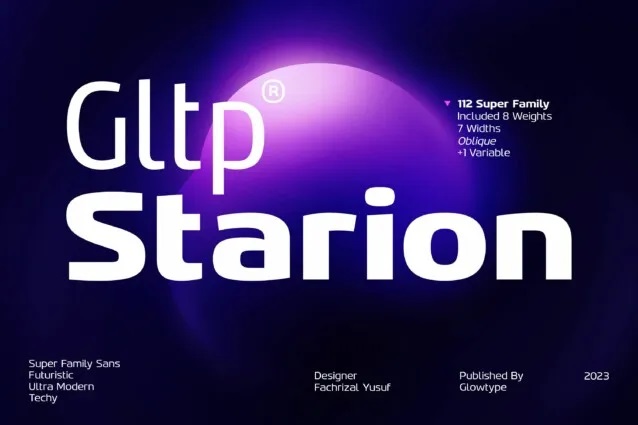
Gltp Starion Font
Gltp Starion Font Family is a super family of sans with open shapes and, technical touch derived from the requirement of automotive, tech, performance and style. This type family aims to cater for the designers who want to give purposeful design direction irrespective of whether one is designing cars, space rockets, airplanes, gadgets, even luxury watches or anything in between.
In these 8 weights, 7 widths, and an oblique. From Thin to Black – Condensed to Hyper-expanded metallic. New Gltp Starion overall appears good-looking and business-like, efficient and balanced, effective both in appearance and in employee relations, conforming to its corporate and communication performance objectives.
Gltp Starion Sans Serif Font Family